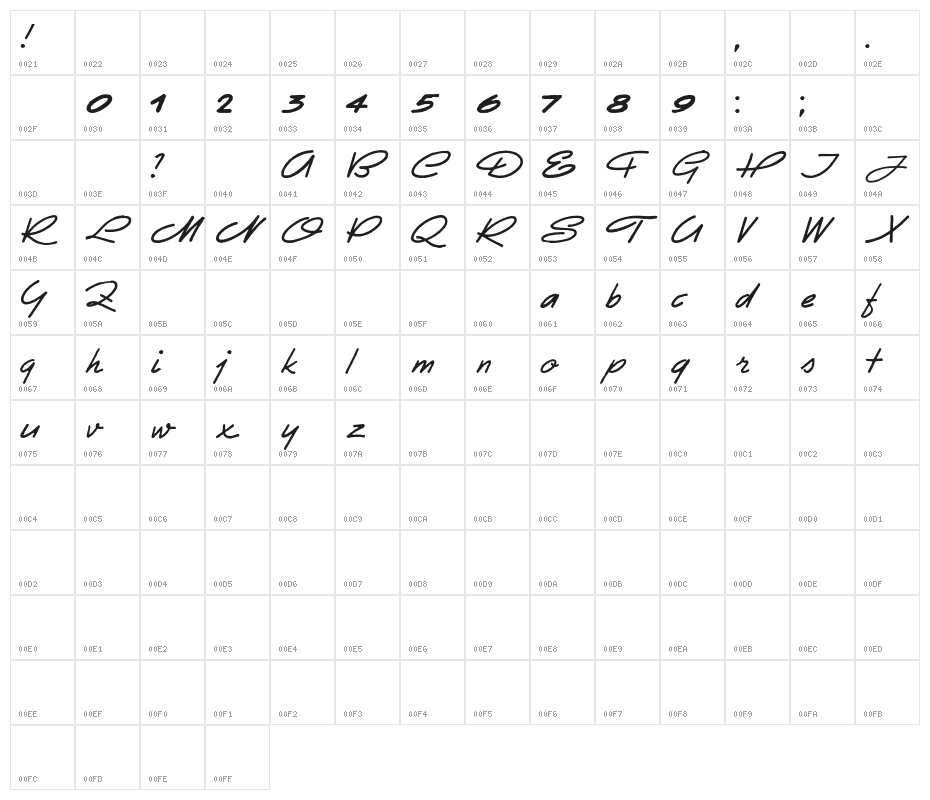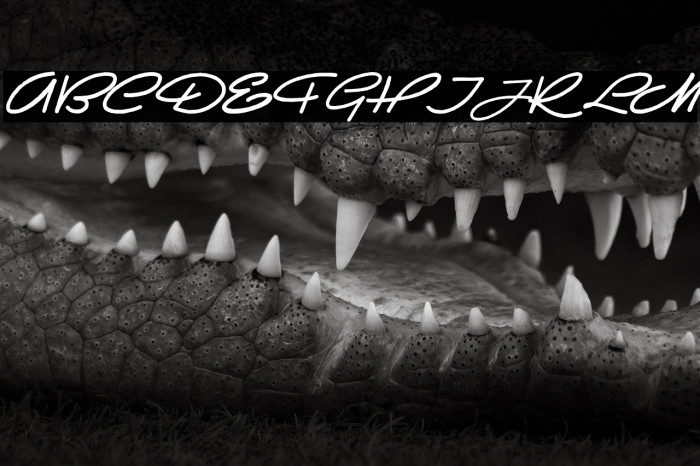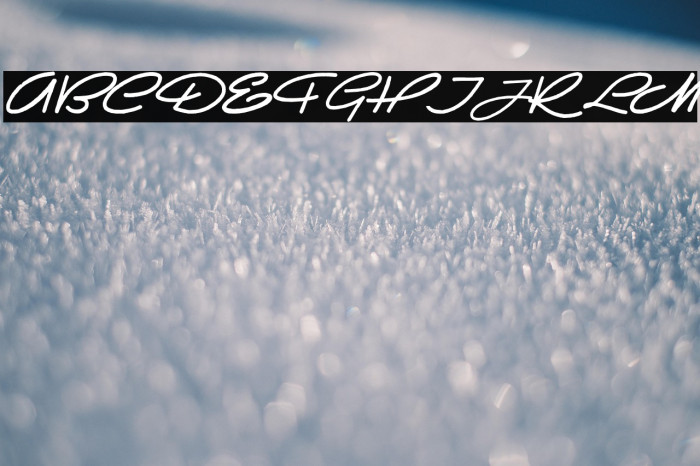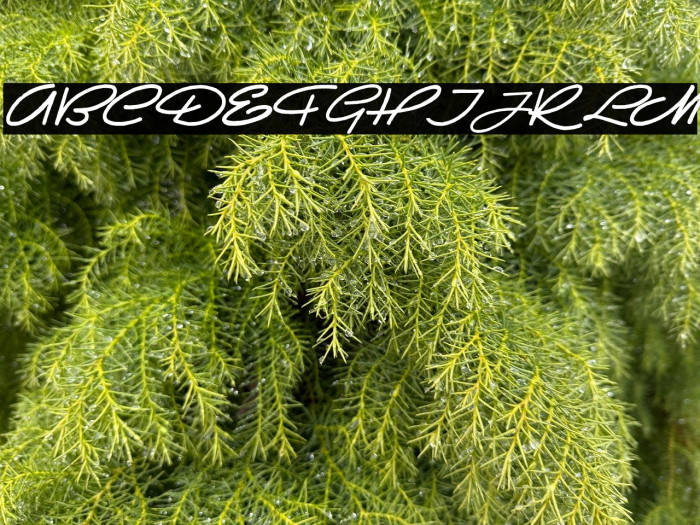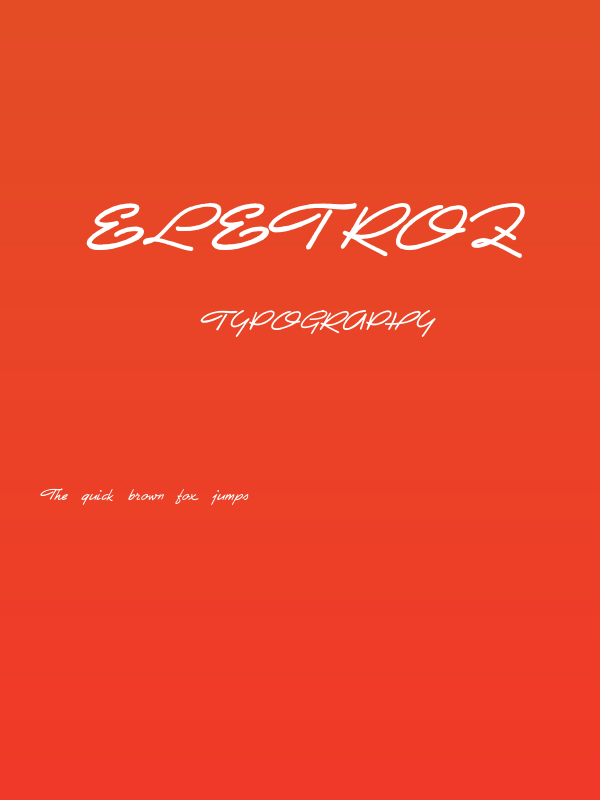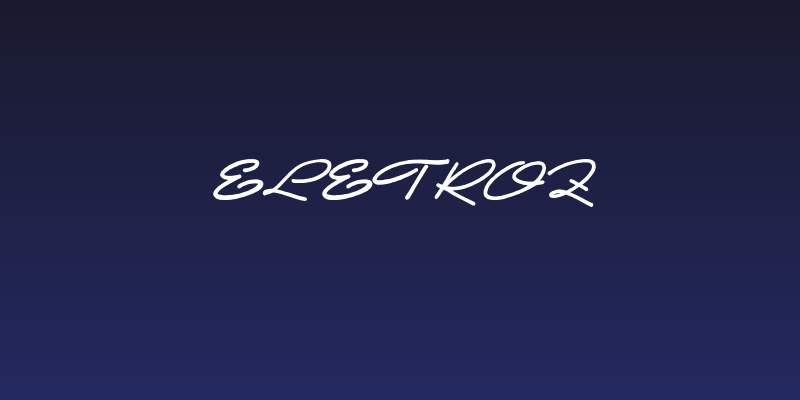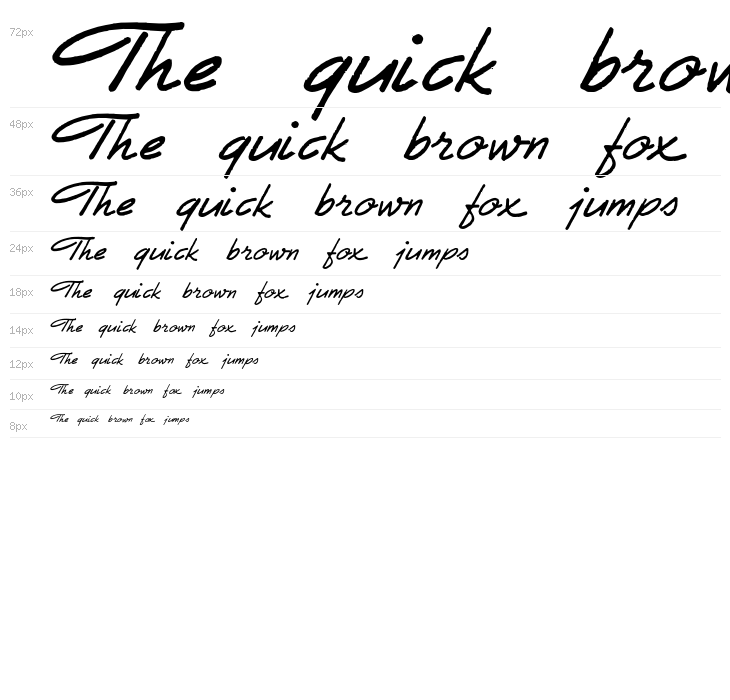
Eletroz Font
Eletroz Description
This font features a dynamic and expressive script style, characterized by its fluid and cursive letterforms. The uppercase letters exhibit a distinct flair with sweeping curves and elegant loops, while the lowercase letters maintain a consistent flow, enhancing readability. The numerals are bold and slightly slanted, complementing the overall aesthetic. Special characters are designed with the same attention to detail, ensuring a cohesive look across all glyphs. The font's design is reminiscent of handwritten calligraphy, making it suitable for projects that require a personal touch or artistic flair.